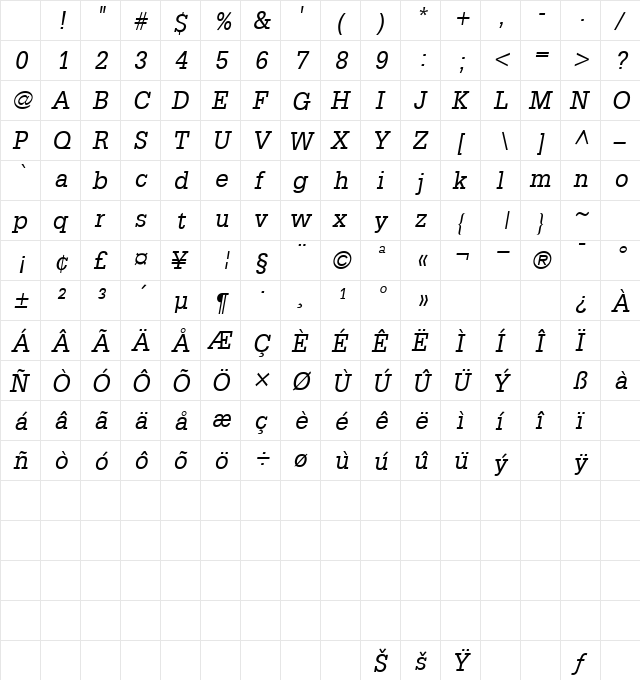
Egotist is a composed and adaptable typeface that performs quietly and consistently across a wide range of design contexts. The slanted form adds forward momentum and visual energy.